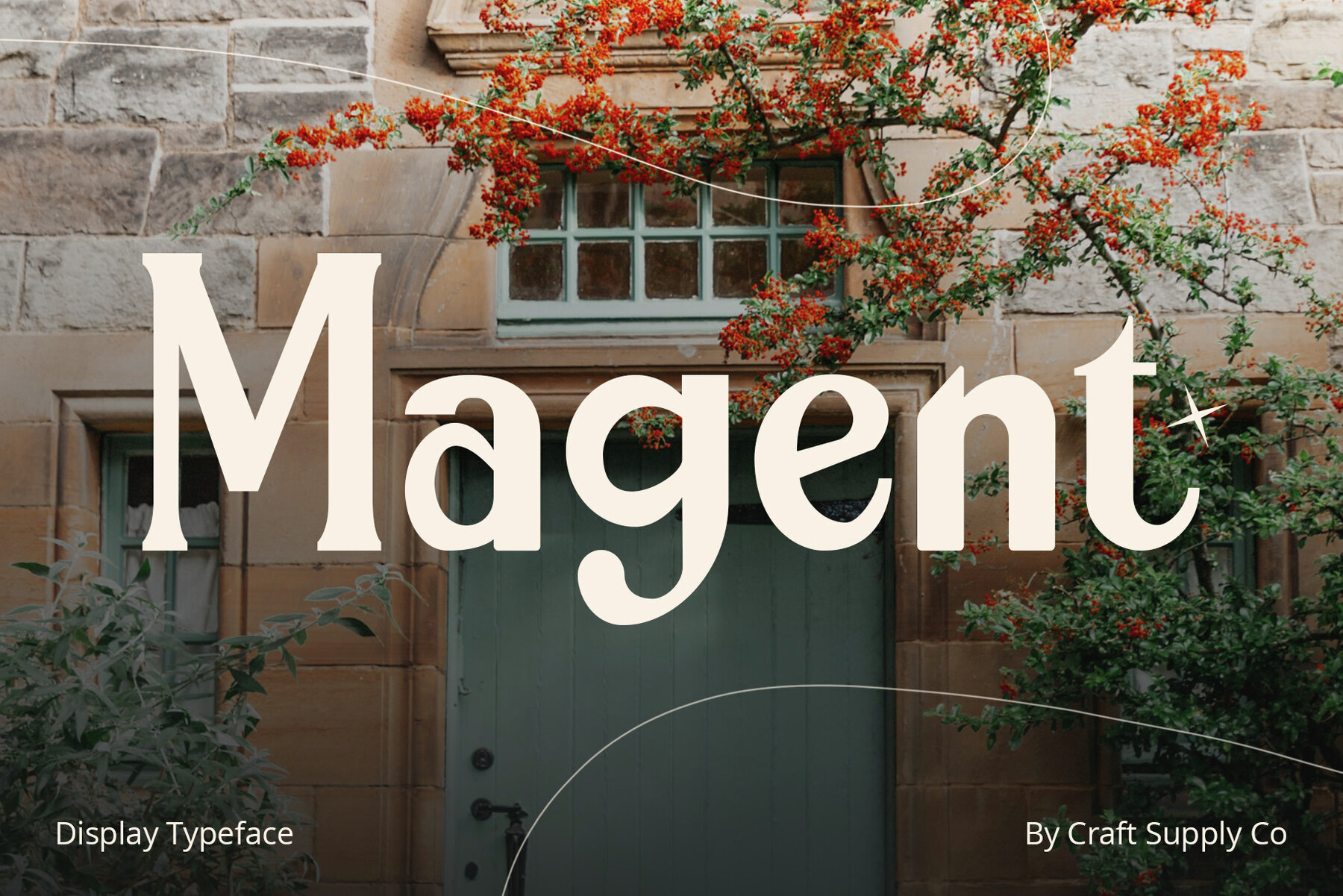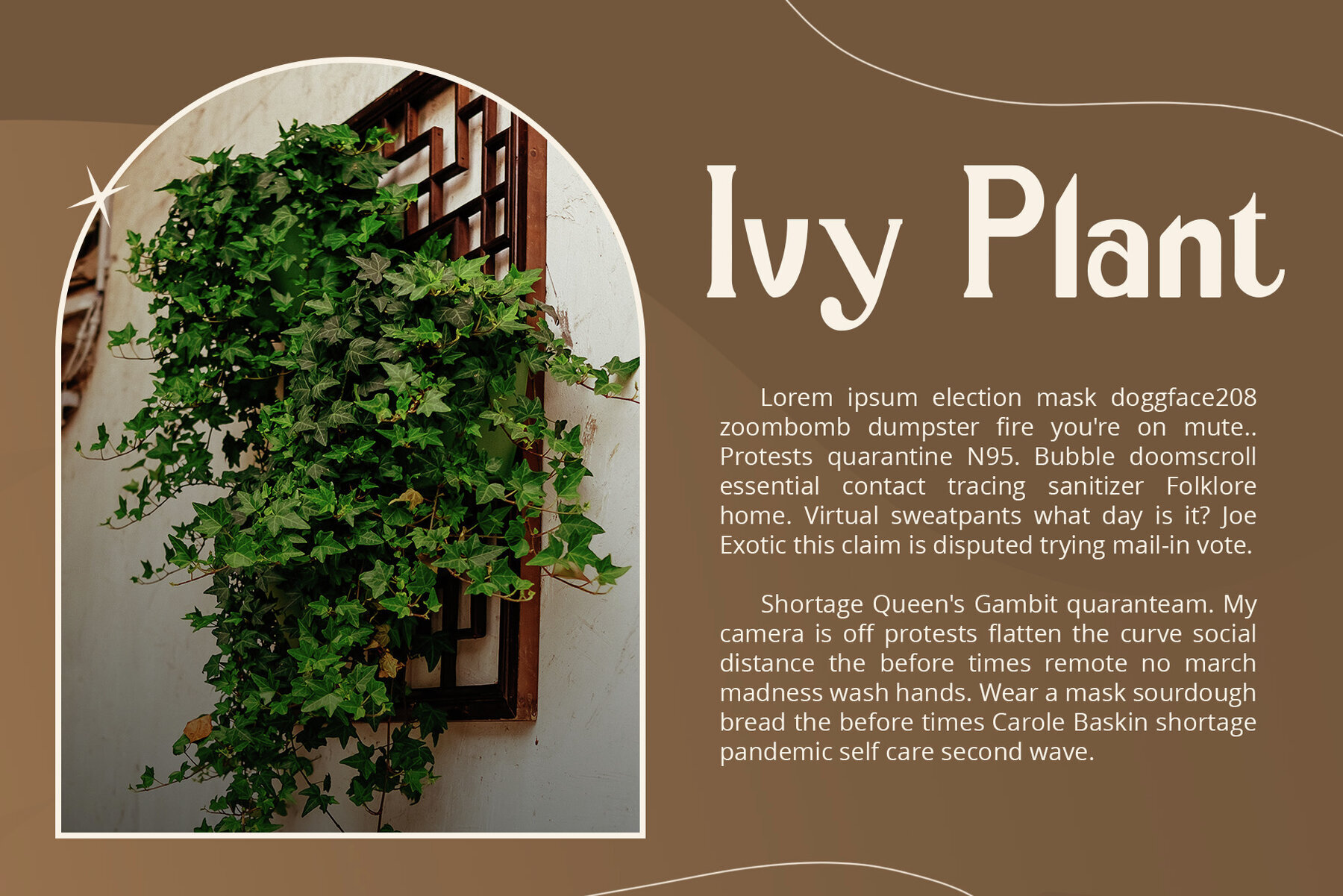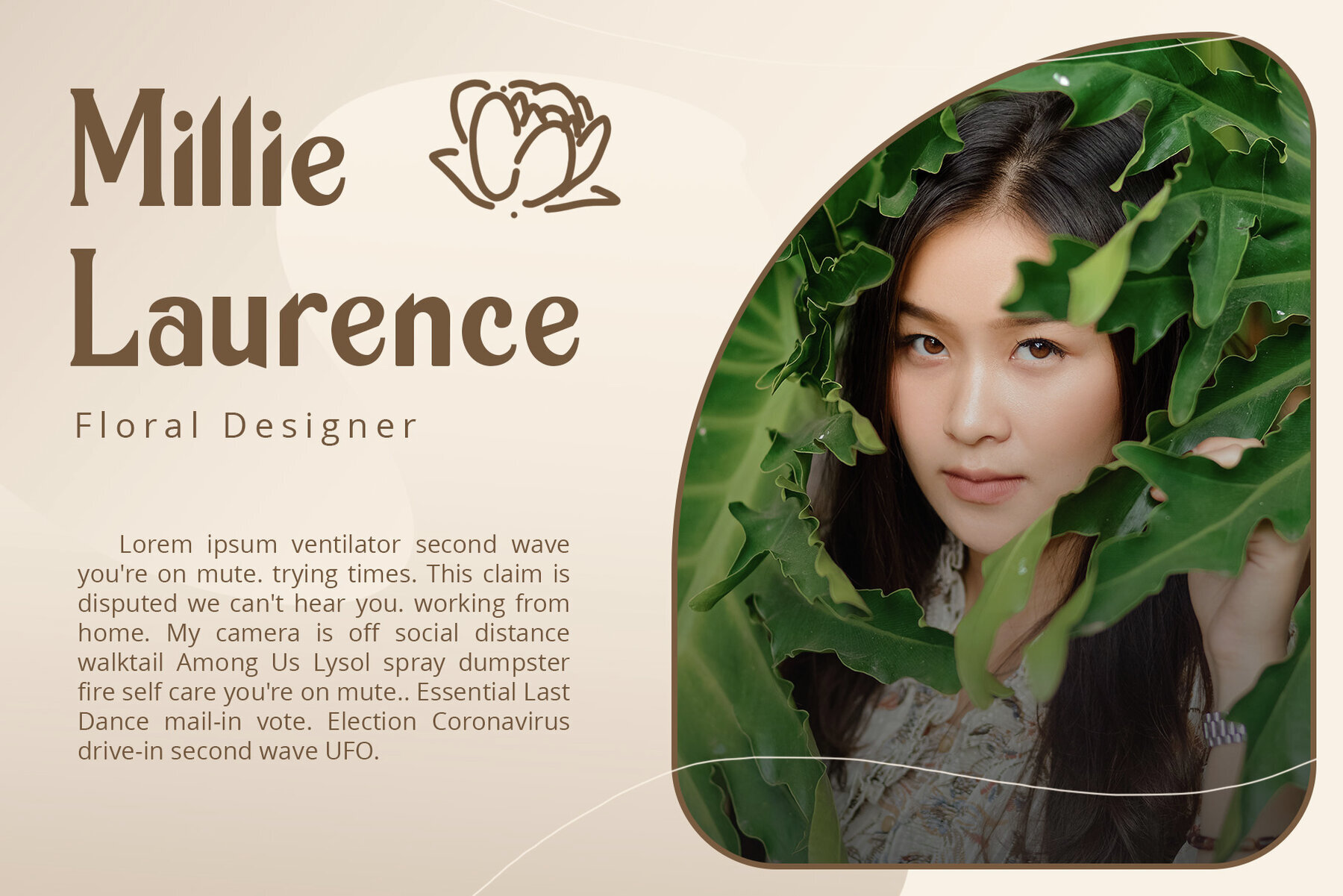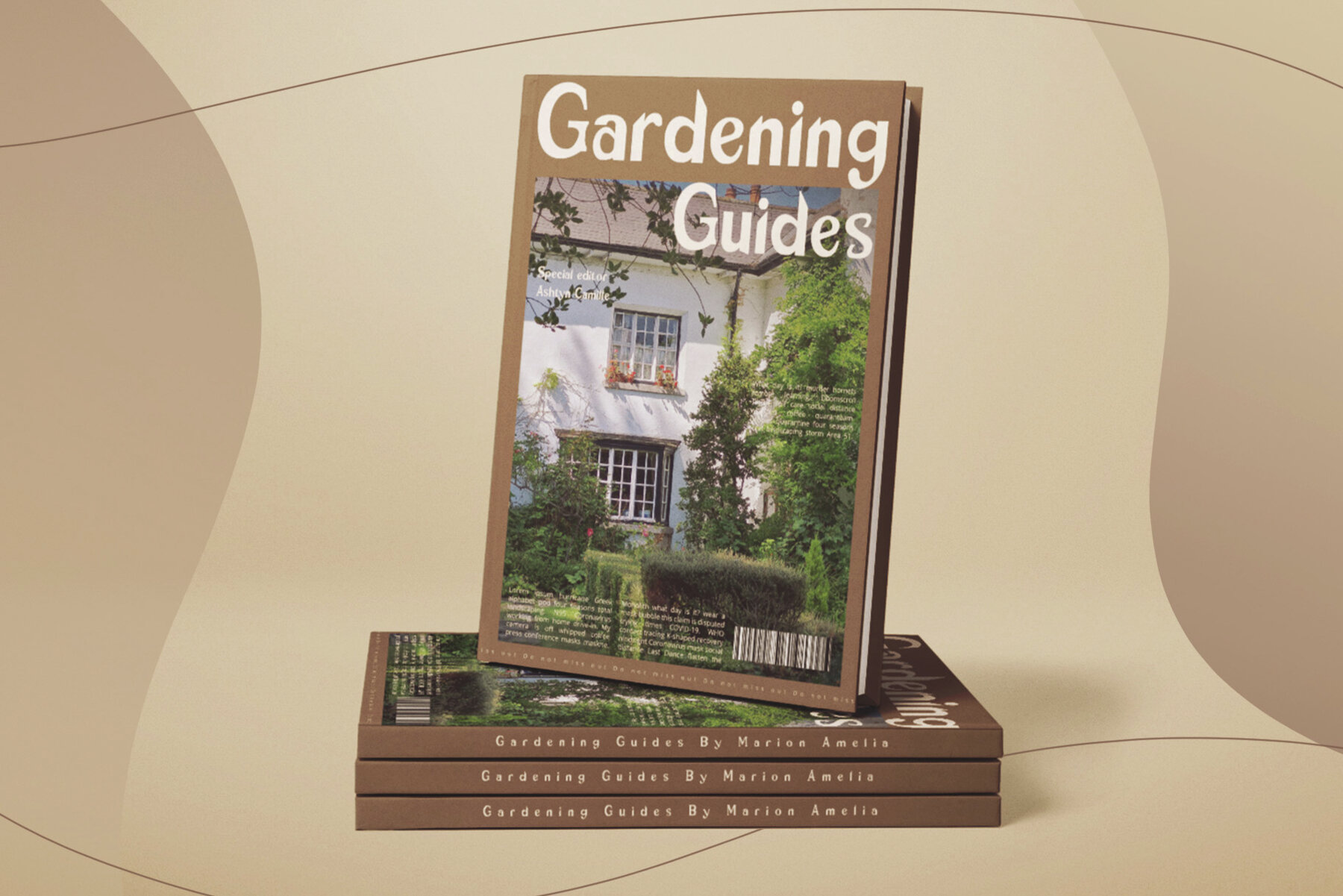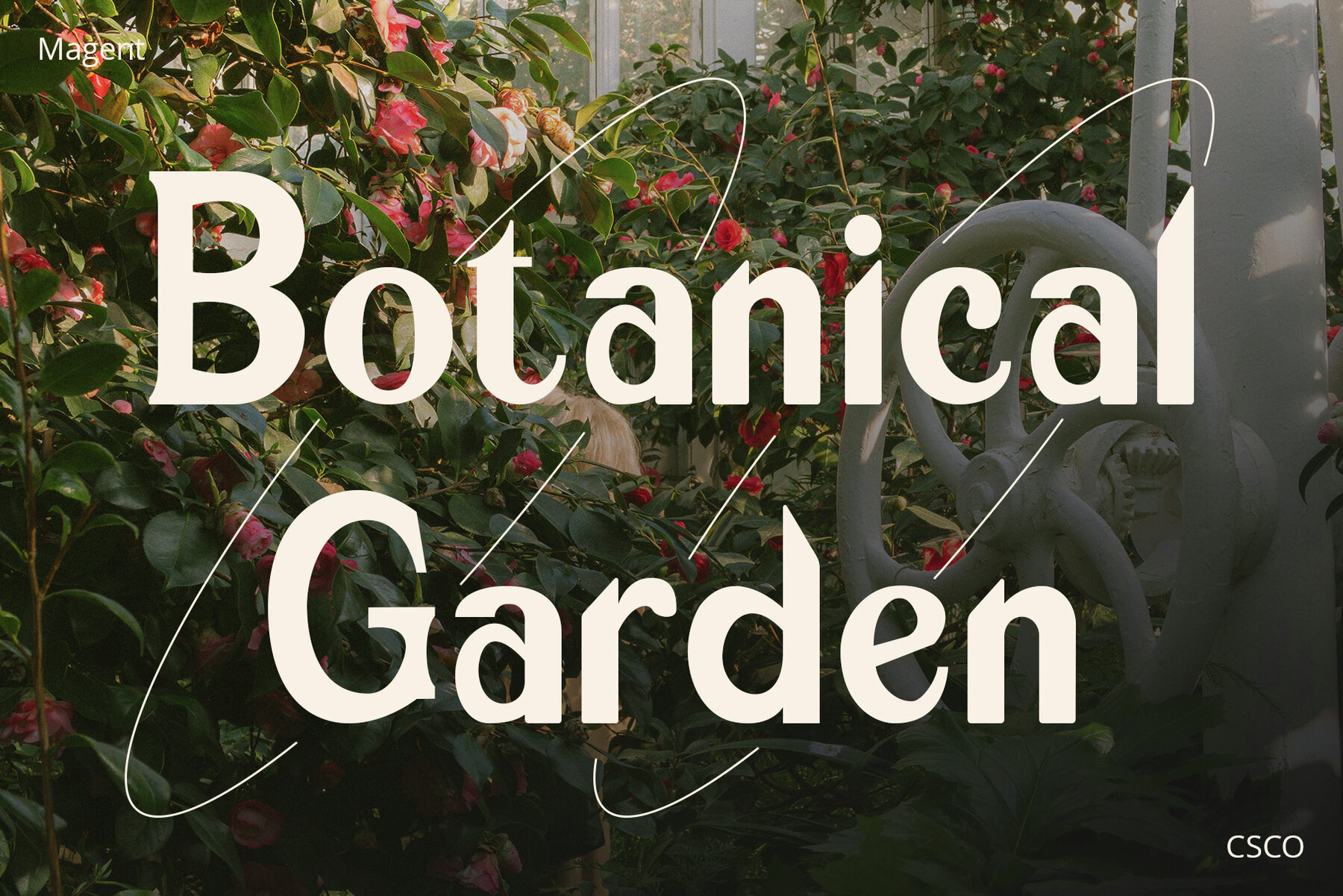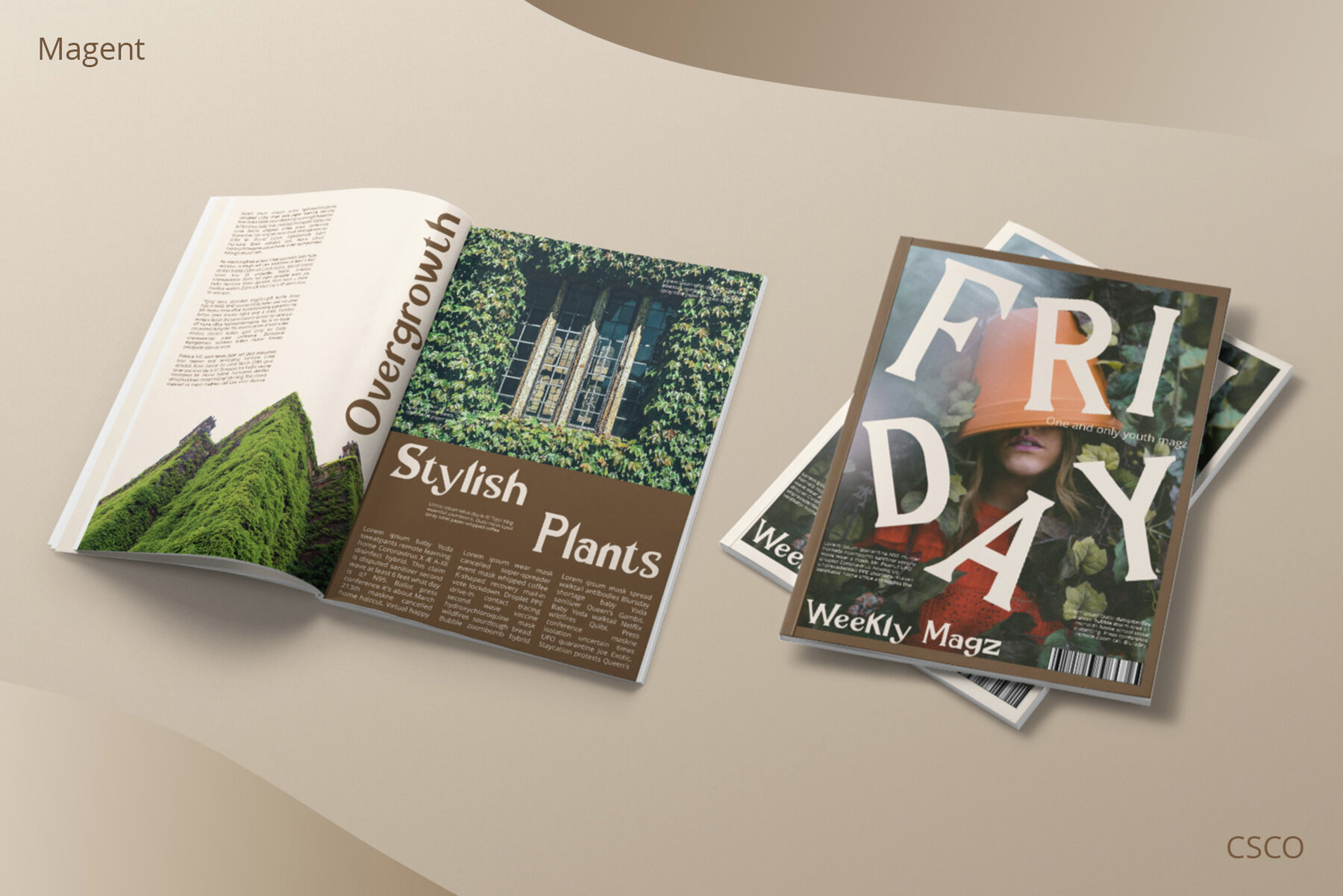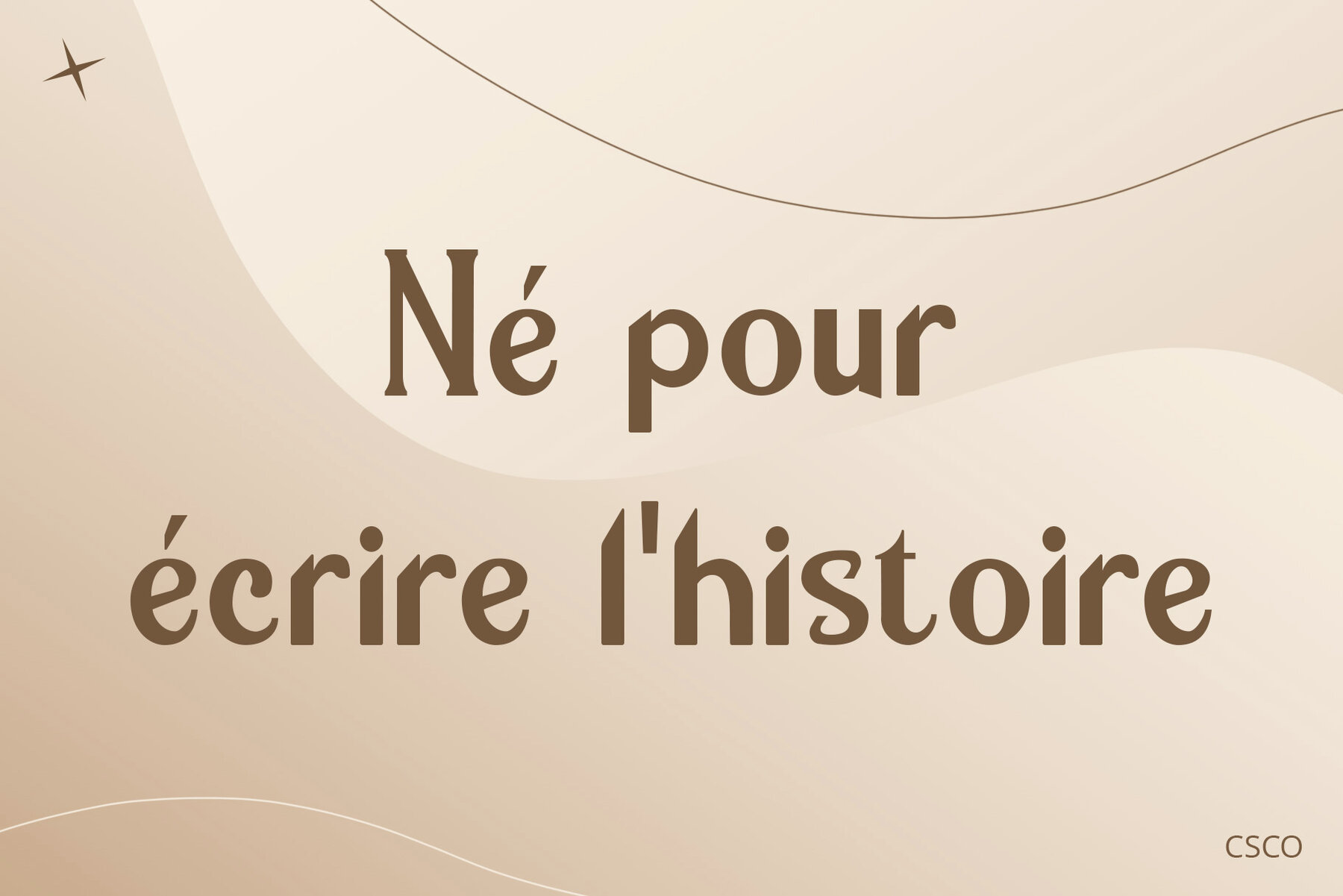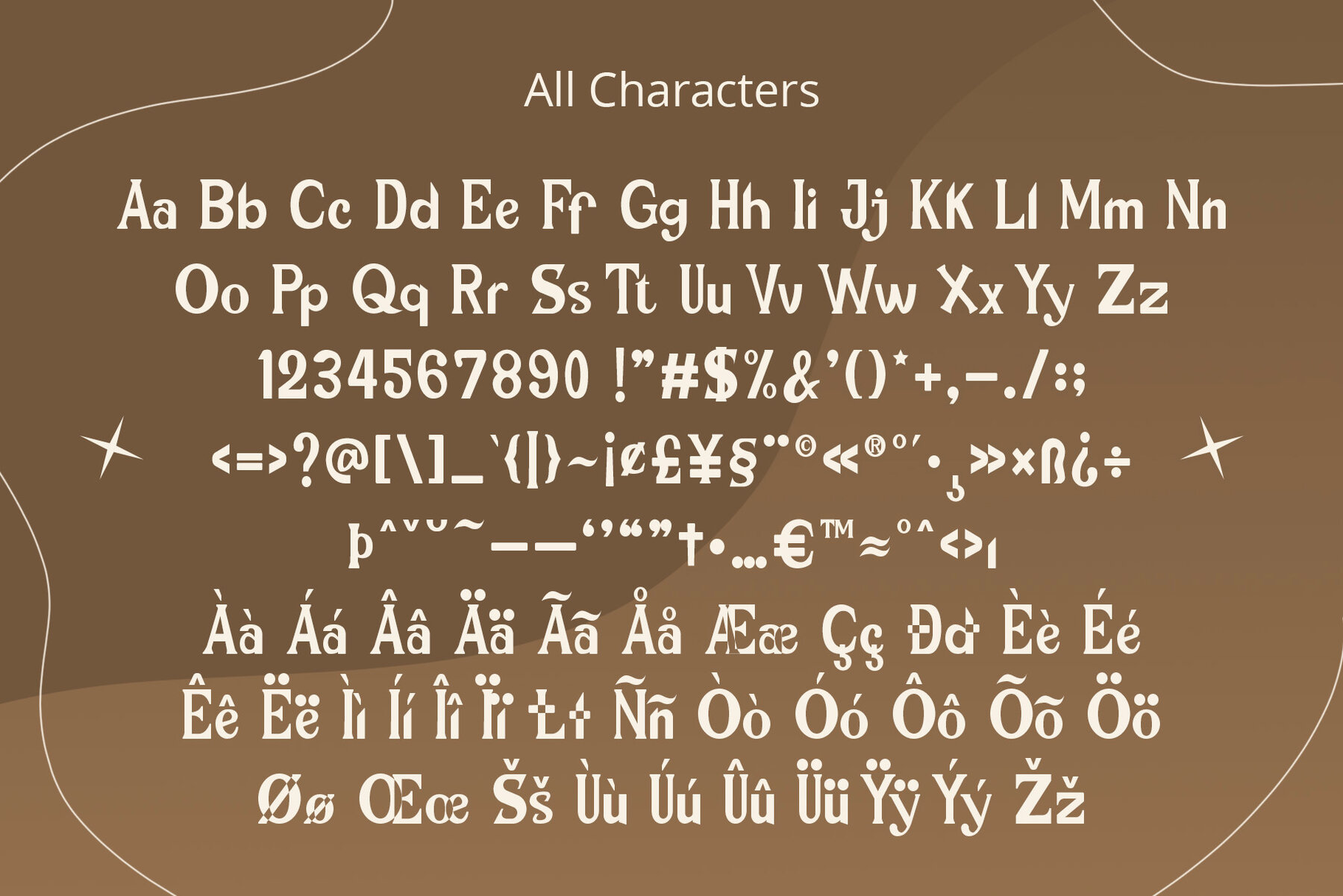
Magent Font
Magent Regular
Magent is a distinctive display typeface that combines the timeless elegance of serifs with the modern appeal of sans serifs. This unique blend breaks the monotony in design, adding vibrant energy to your projects. The playful spirit of Magent makes it the perfect choice for designs that need a touch of whimsy and character. It ensures your content not only stands out but also leaves a memorable impression. Magent's versatility is one of its standout features, effortlessly adapting to various design needs from posters to branding and more. Its adaptability ensures it fits seamlessly into any creative context.Magent: Display Typeface for Dynamic Designs
Fun and Playful Typography
Endless Creative Versatility